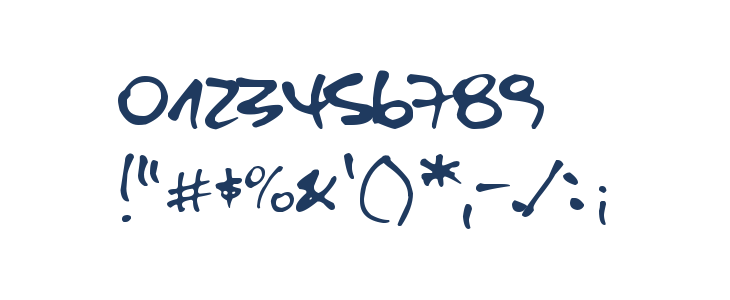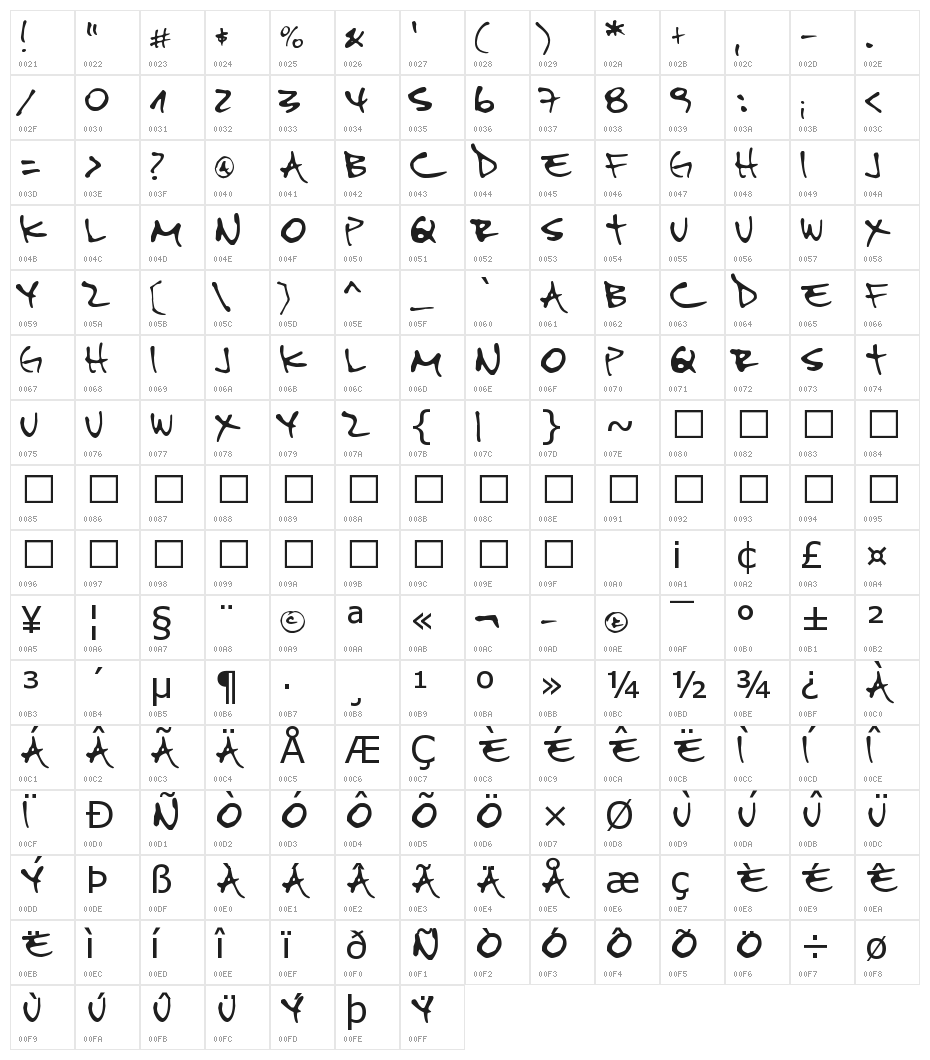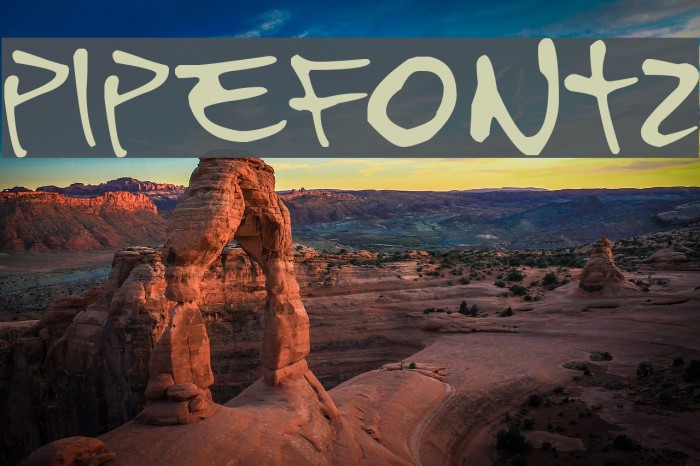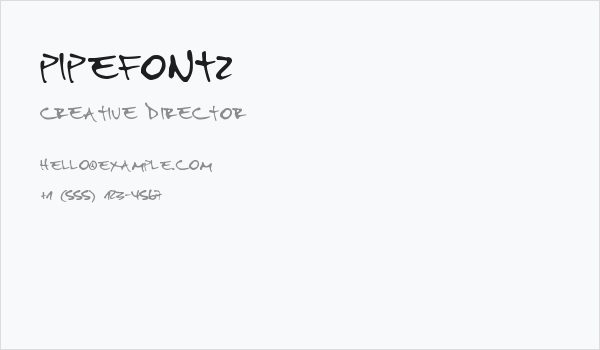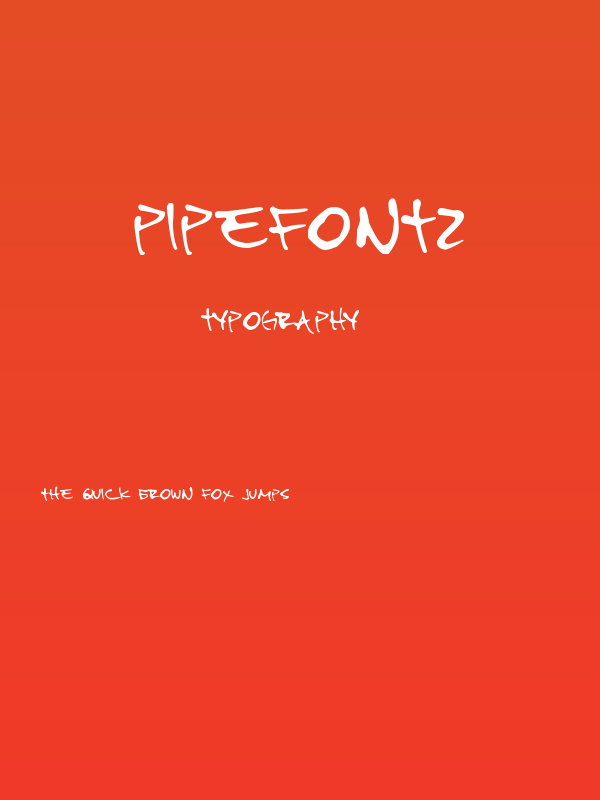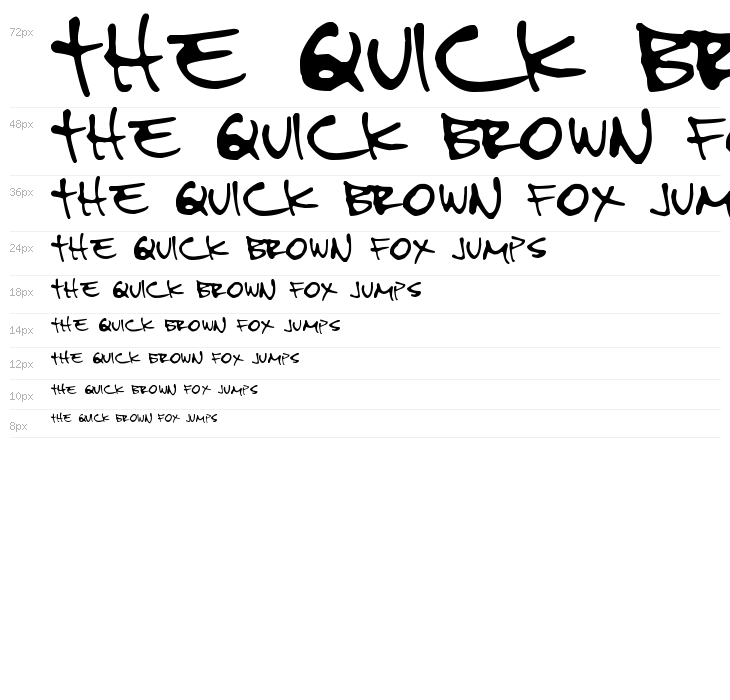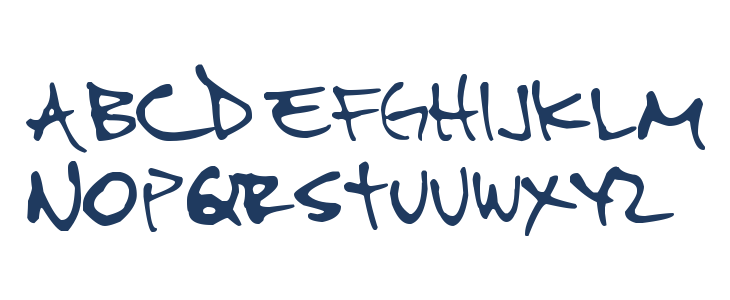
PipeFont2 Font
PipeFont2 Description
This font exhibits a bold, handwritten style with a dynamic and energetic appearance. The characters are crafted with a brush-like texture, giving them a casual and artistic feel. The uppercase and lowercase letters maintain a consistent flow, while the numbers and special characters complement the overall aesthetic. The strokes are thick and expressive, with varying widths that add to the font's lively character. This style is reminiscent of graffiti or street art, making it suitable for projects that require a bold and informal touch.
| Use Case | Logos, Headlines, Posters |
| Proposed Projects | Ideal for street art designs, posters, album covers, and creative branding projects. |